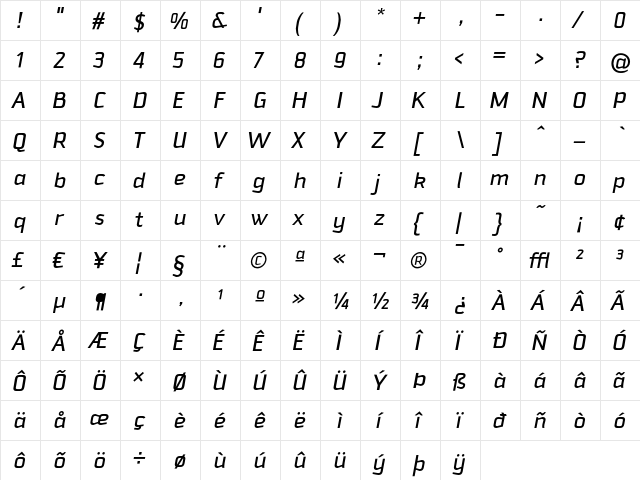
Downtempo MediumItalic
Design Context for Downtempo Typeface
Downtempo takes a measured approach to typography — its balanced proportions and neutral character make it a reliable workhorse for both digital and print work. The slanted form adds forward momentum and visual energy.
Pro Tip: Use Downtempo for emphasis, pull quotes, and subheadings where its slanted energy can add rhythm to the layout.